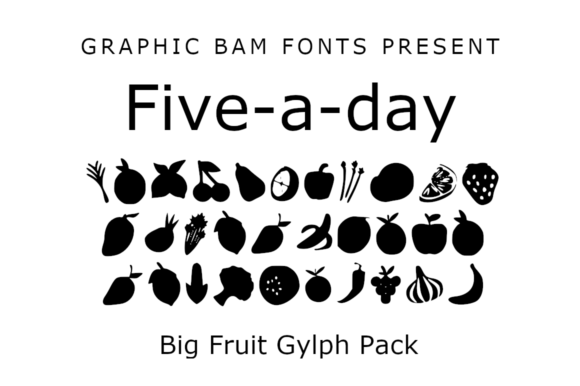
The Ultimate Design Hack: Unleashing the Power of 5-a-Day Font
I’ll never forget the time I was working on a project for a client who wanted a fun and quirky design for their new healthy food blog. I was struggling to find the right font to match their brand’s playful vibe. That’s when I stumbled upon the 5-a-Day font, and it was love at first sight! 💕 This cool and unique dingbats font has been a game-changer for my designs, and I’m excited to share its awesomeness with you.
5-a-Day Font: A Personal Review
- ✨ Unique and fun collection of fruit and vegetable glyphs that add a pop of personality to any design
- ✅ Easy to use and navigate, even for those who aren’t font experts
- 🌟 Perfect for designs that need a playful and healthy twist, such as food blogs, cookbooks, or wellness websites
- 🎨 Versatile and can be used for various design projects, from digital graphics to craft projects
While the 5-a-Day font is amazing, there are a few things to keep in mind:
- ⚠️ Some glyphs might be a bit tricky to find, especially if you’re new to using dingbats fonts
One of the best things about the 5-a-Day font is its OpenType features and glyphs. Here’s how to make the most of them:
- Stylistic Alternates: Many OpenType fonts, including 5-a-Day, offer stylistic alternates that allow you to switch between different versions of a glyph. This can add an extra layer of customization to your design.
- Glyphs: The 5-a-Day font comes with a wide range of glyphs, from fruits and vegetables to icons and symbols. Experiment with different glyphs to add visual interest to your design.
The Story Behind 5-a-Day Font
The 5-a-Day font was created by a team of designers who wanted to bring a fun and playful twist to the world of dingbats fonts. Inspired by the idea of healthy eating and the importance of fruits and vegetables, they designed a font that would make it easy to add a pop of personality to any design.
| Font Name | 5-a-Day Font |
| Author | GraphicsBam Fonts |
Q: What is the 5-a-Day font?
A: The 5-a-Day font is a unique dingbats font that includes a collection of fruit and vegetable glyphs, perfect for designs that need a fun and healthy twist.